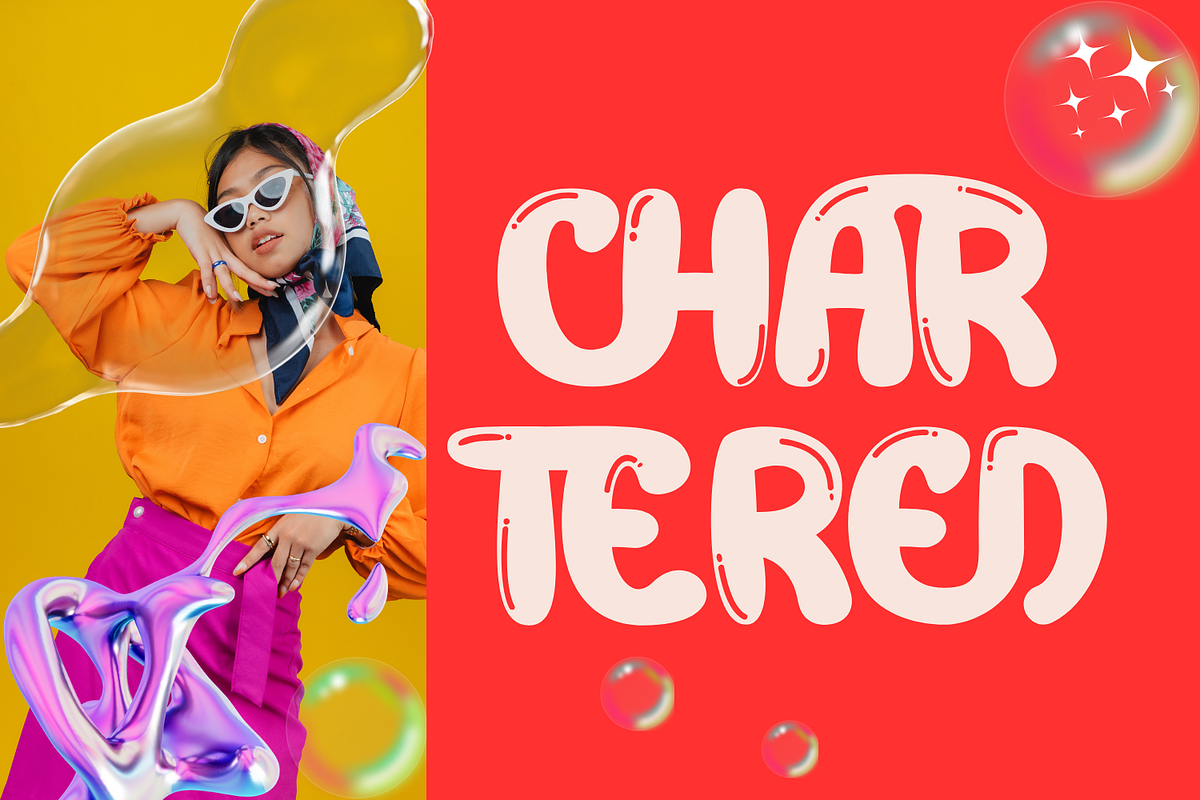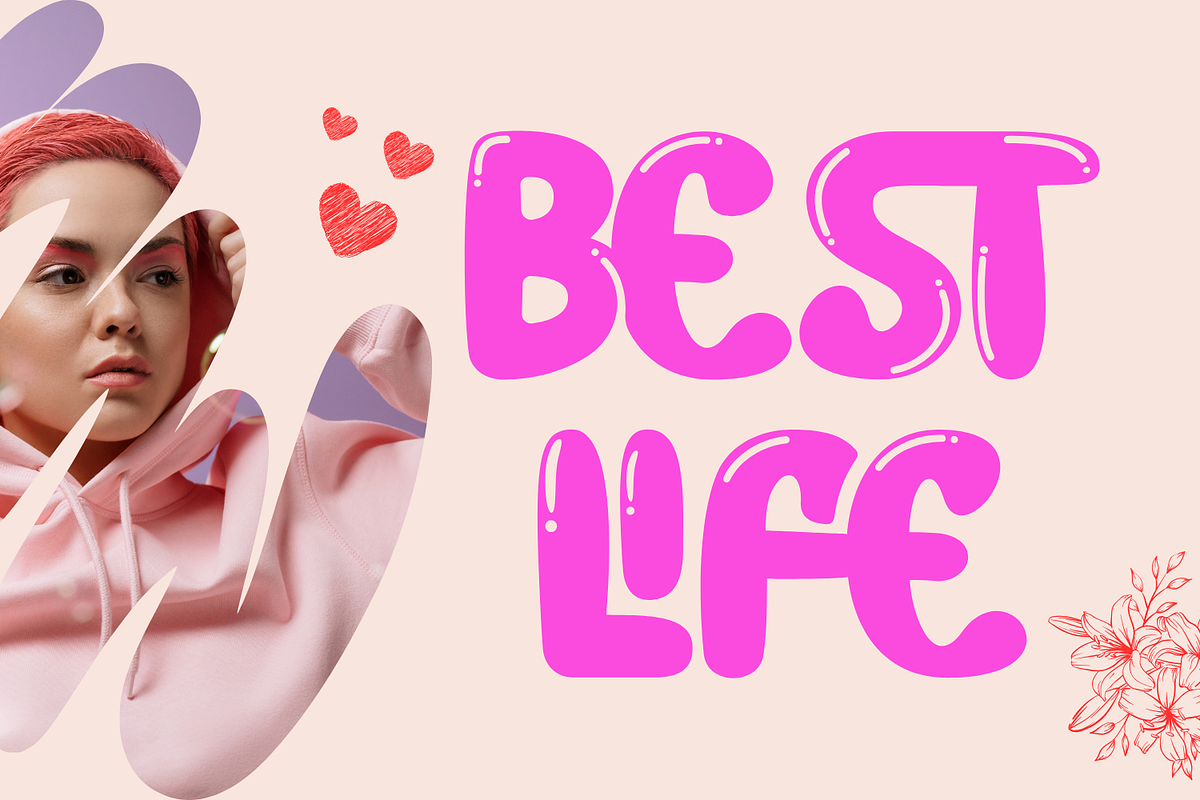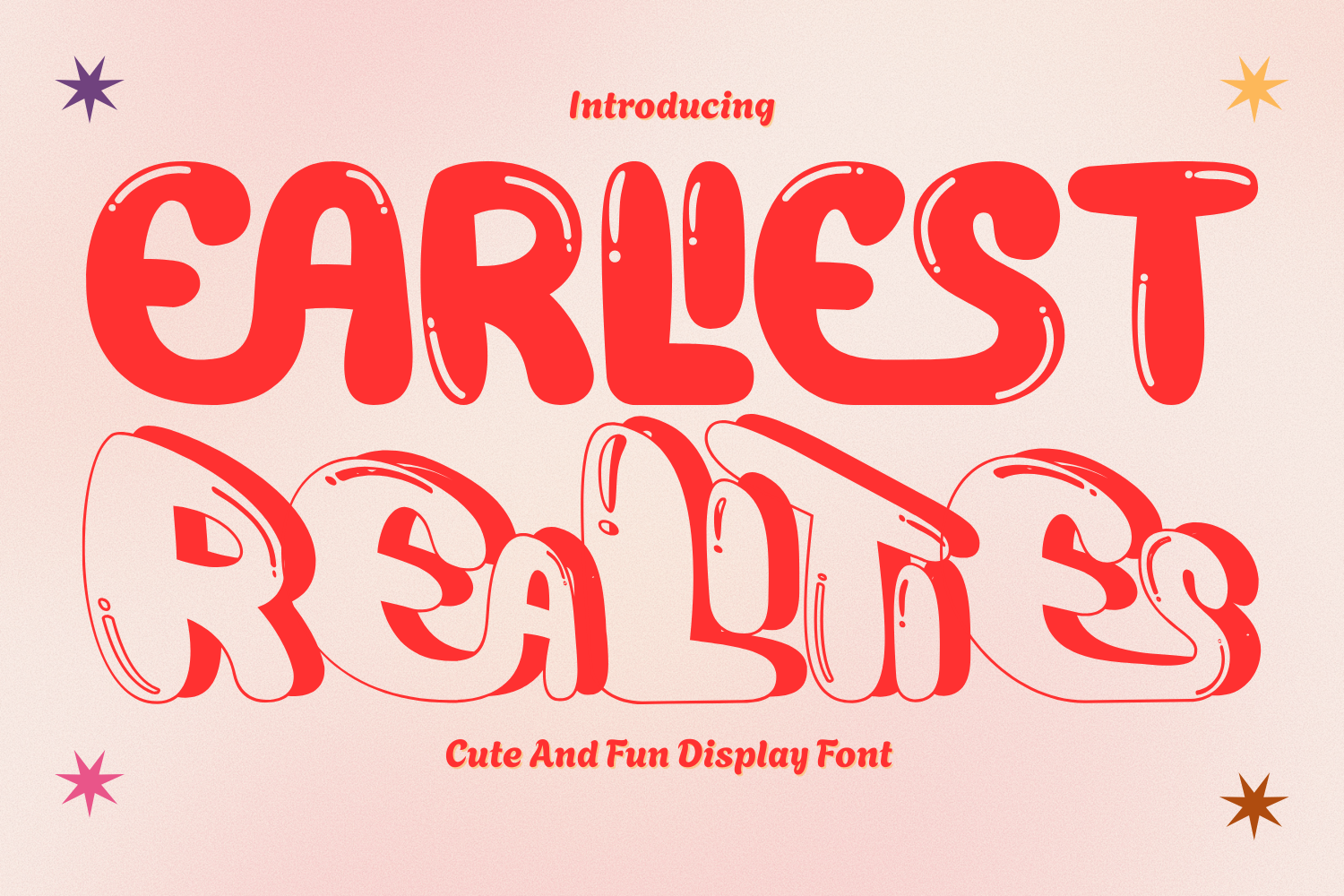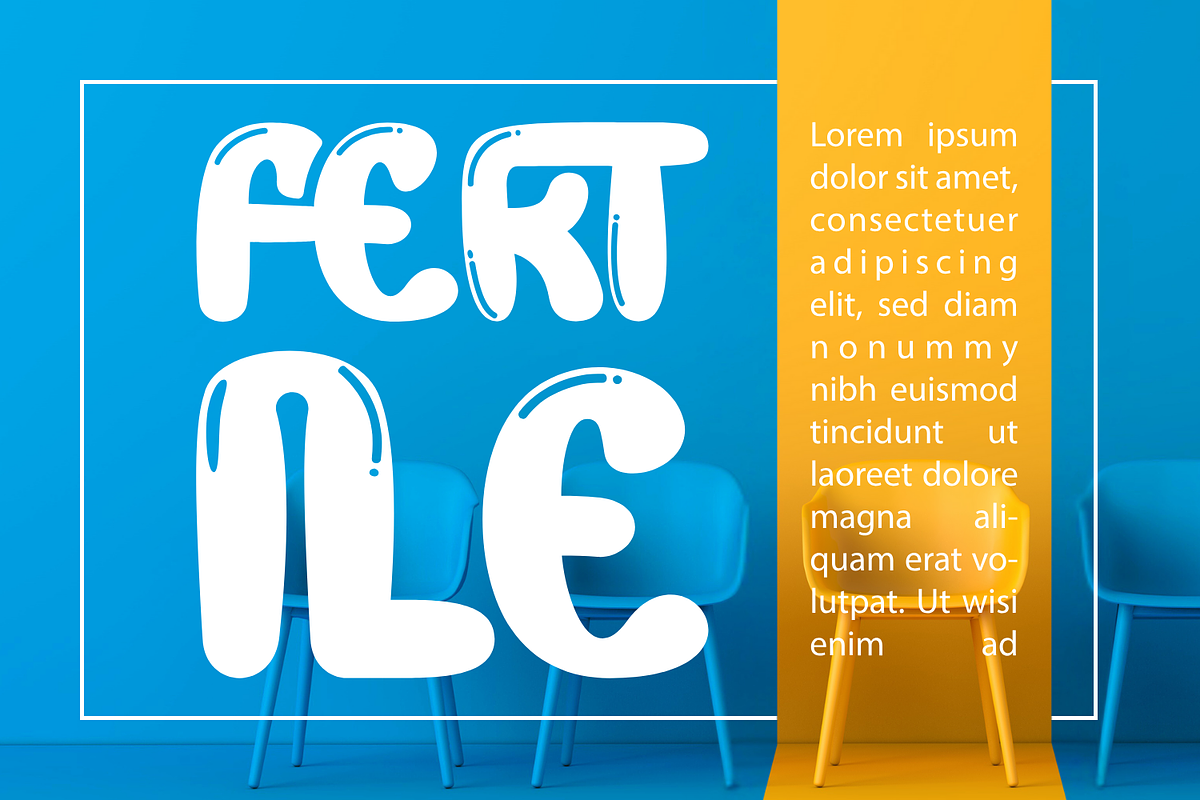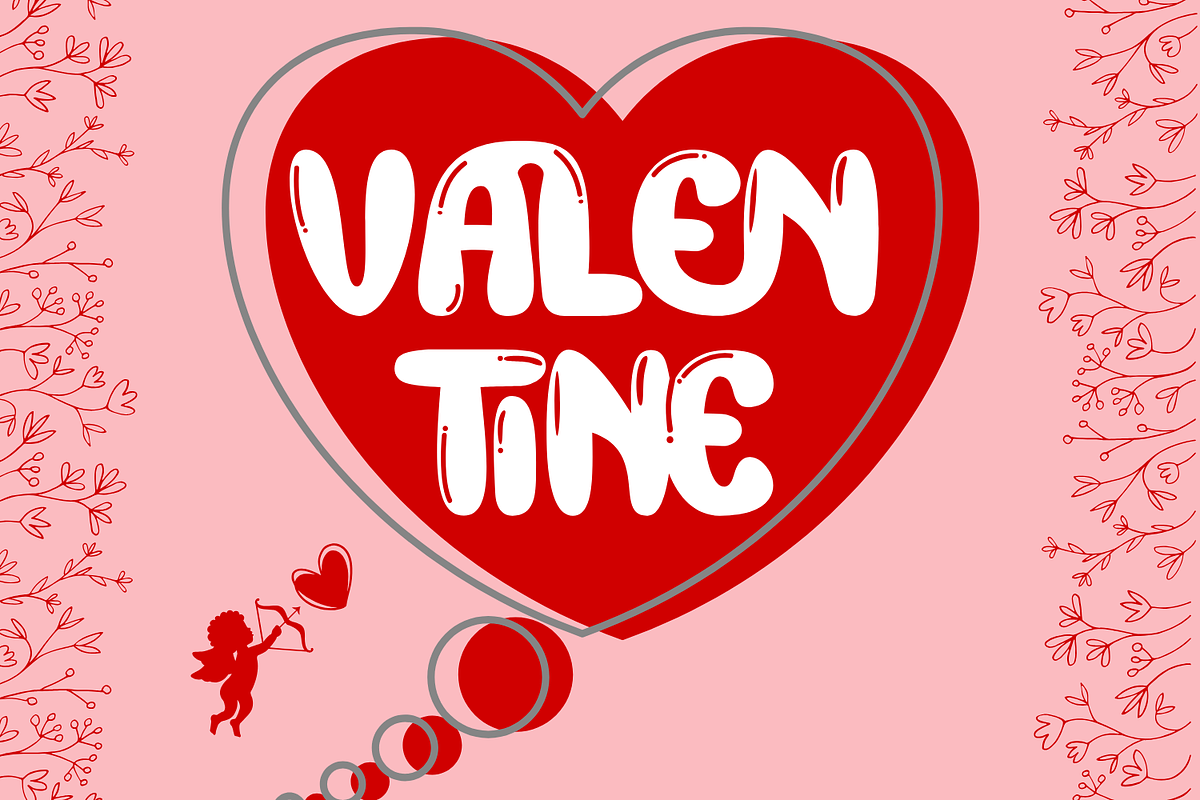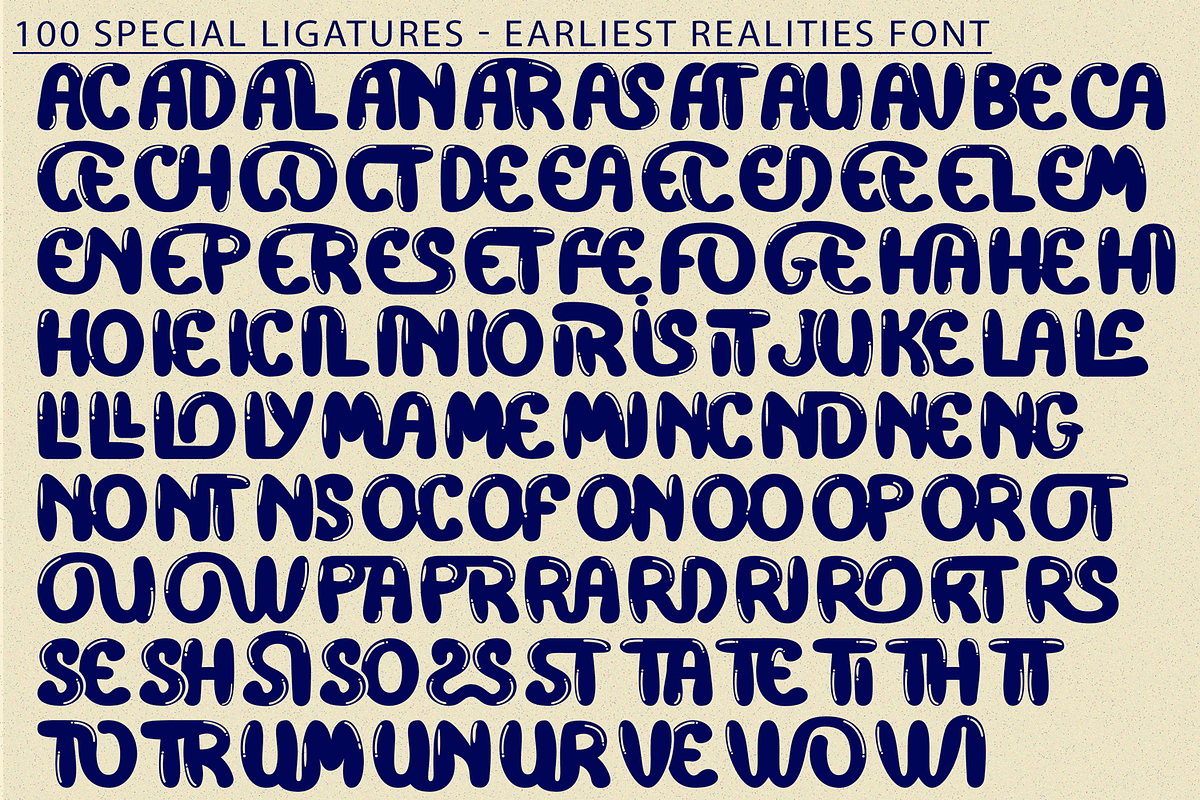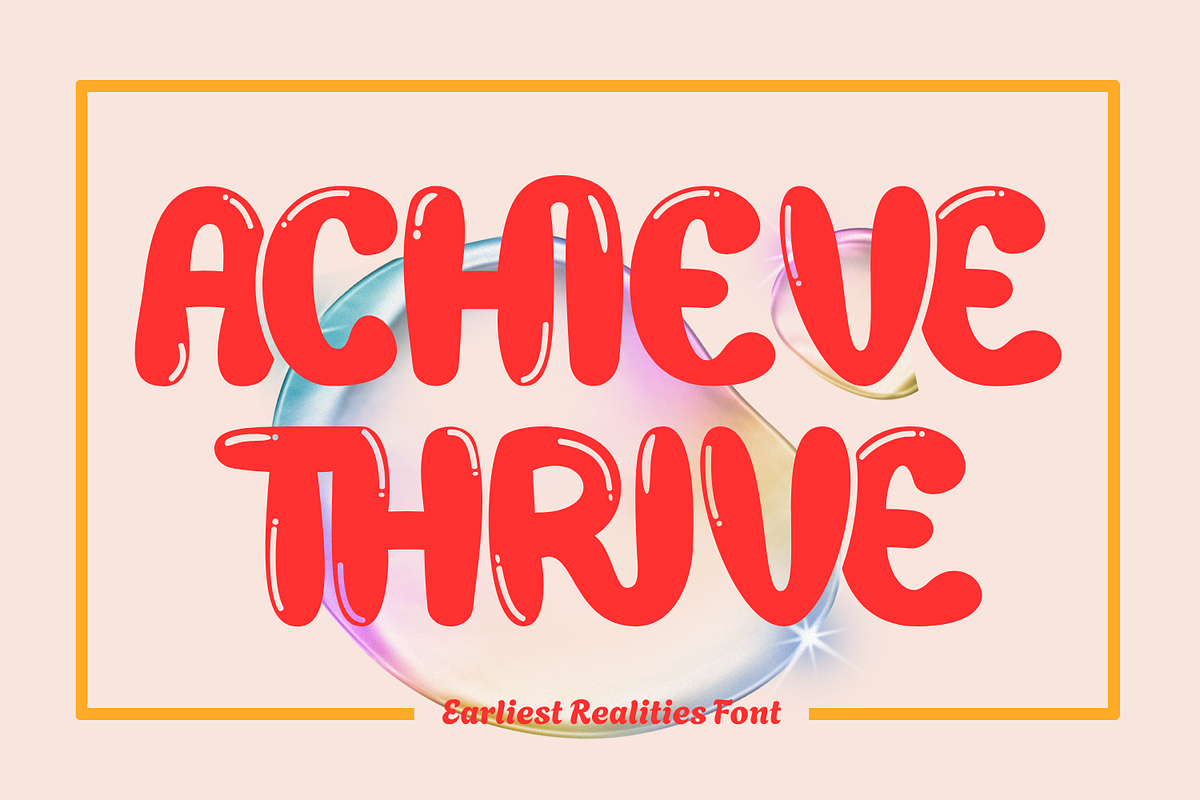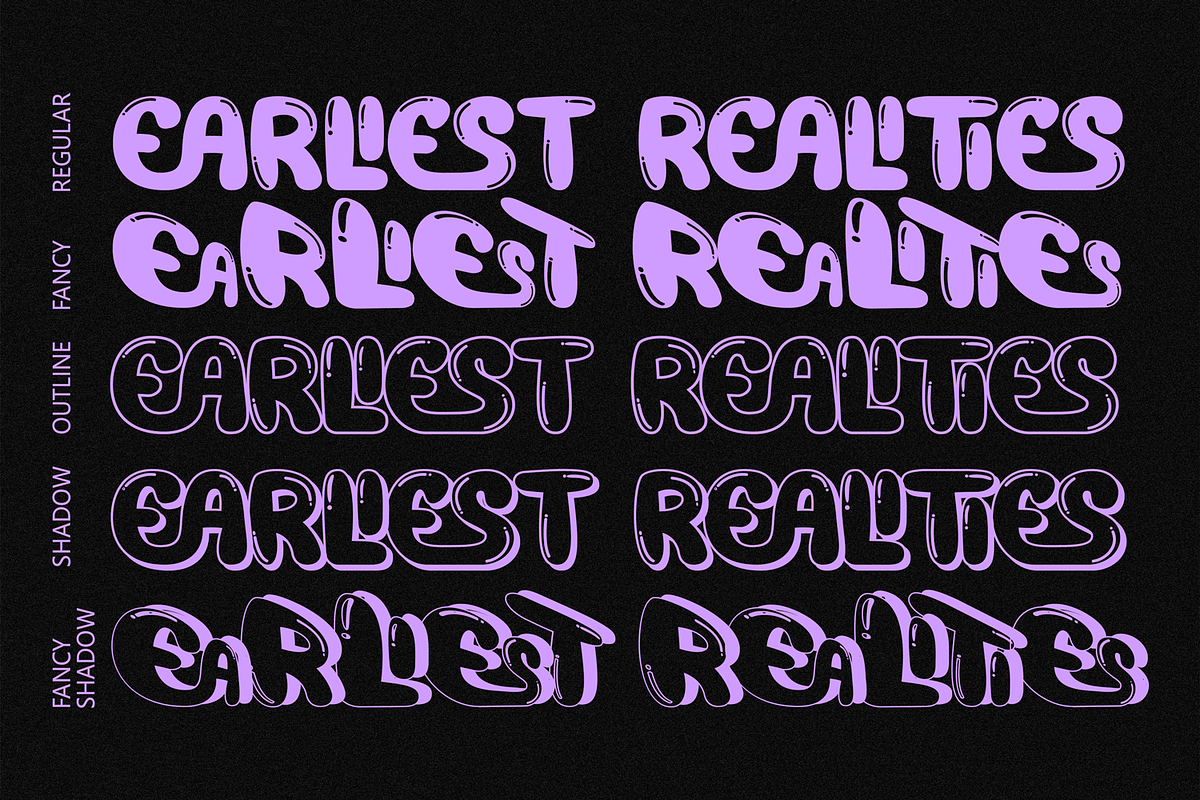
Earliest Realities - Playful Font
Earliest Realities - Playful Font - A Playful Bubble Display Font, a bold and fun bubble-style display font designed to bring energy, joy, and personality to your creative projects. With its rounded, inflated shapes and glossy highlights, this font captures the charm of playful lettering while remaining modern and versatile. Perfect for children’s books, posters, party invitations, packaging, social media graphics, and any project that calls for a cheerful and eye-catching touch.
- Uppercase Letters
- ~100 Unique Ligatures for playful variations
- Accented Characters for multilingual support
About 100 ligatures combined with Stylistic Alternates Font:
AC AD AL AN AR AS AT AU AV BE CA CE CH CO CT DE DI EA EC ED EE EL EM EN EP ER ES ET FE FO FR GE HA HE HI HO IE IC IL IN IO IR IS IT JU KE LA LE LI LL LO LY MA ME MI NC ND NE NG NO NT NS OC OF OM ON OO OP OR OT OU OW PA PR RA RD RE RI RO RS RT SE SH SI SO SS ST TA TE TH TI TO TR TT UM UN UR VE WI WO